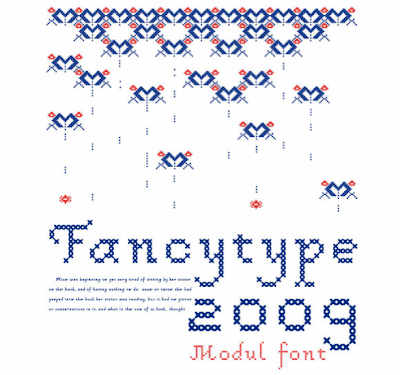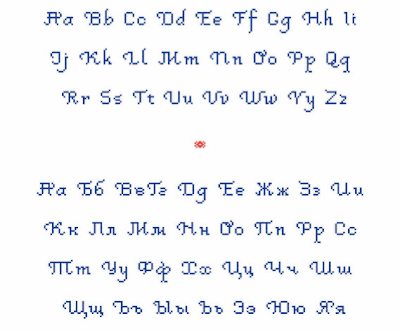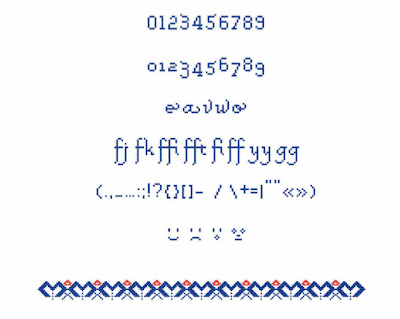
TypeFace Tuesday :: Module by Julia Kuznetsova
TypeFace Tuesday is a little crafty today: check out this embroidery font by Julia Kuznetsova. "Module" is an ornamental typeface created as part of a student project. I could definitely see this put to good use on Etsy, couldn't you?